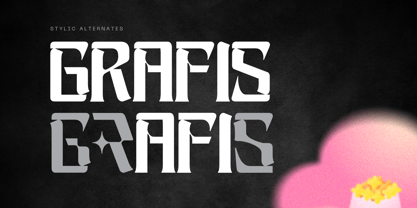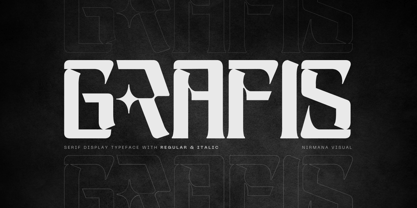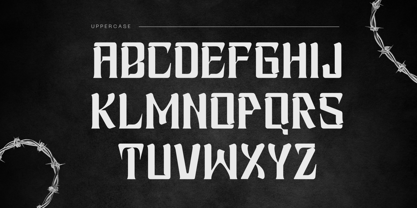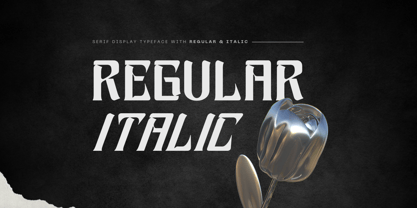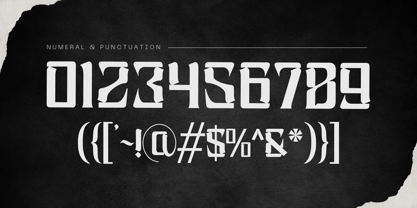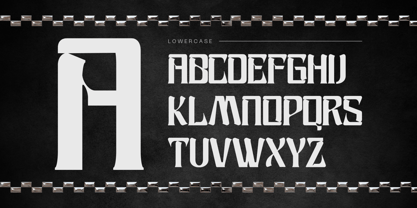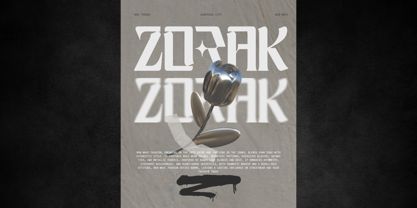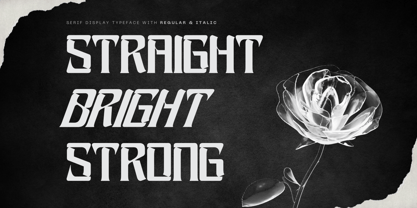
Grafis Techno
por Nirmana Visual
A família de fontes Grafis Techno foi desenhada por Sigit Dwipa e publicada pela Nirmana Visual. Grafis Techno contém 2 estilos e opções de pacote familiar. Saiba mais sobre esta família
Grafis Techno is a futuristic font that blends modern serif elegance with bold techno display elements. Designed for innovation, it features high-contrast strokes, angular terminals, and sleek curves, creating a cutting-edge yet refined look. Ideal for tech branding and sci-fi visuals. Grafis Techno offers custom ligatures and alternate glyphs for versatility. This fusion of serif stability and futuristic aesthetics makes it a standout in digital and creative industries.
Designers: Sigit Dwipa
Fundição atual: Nirmana Visual